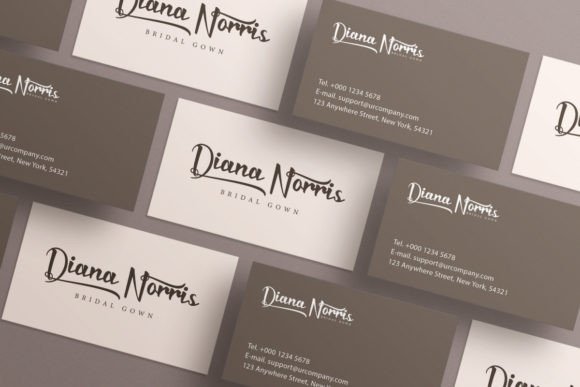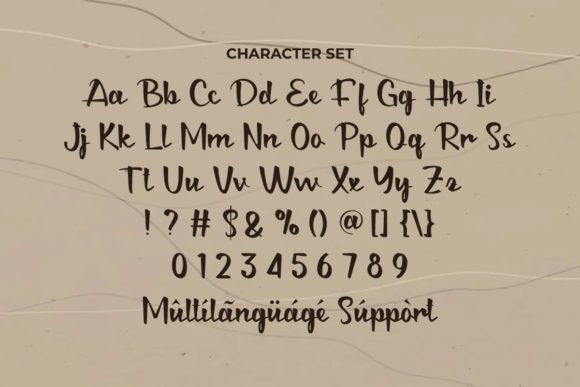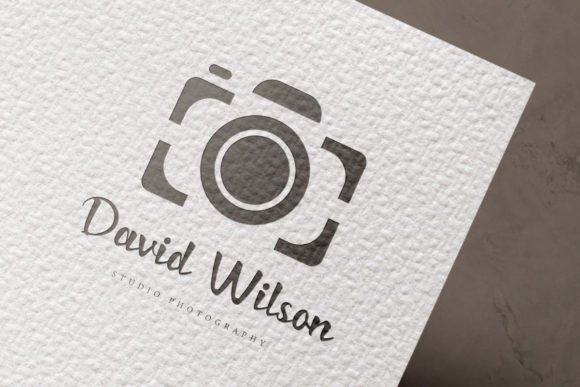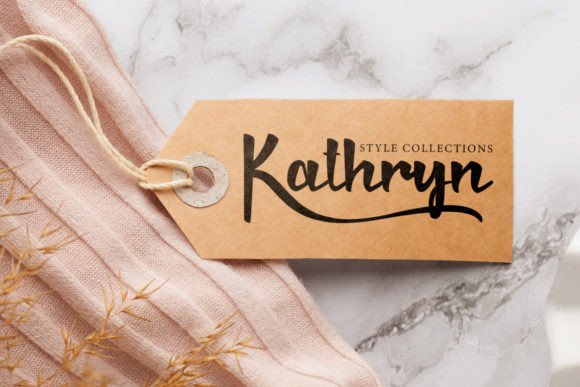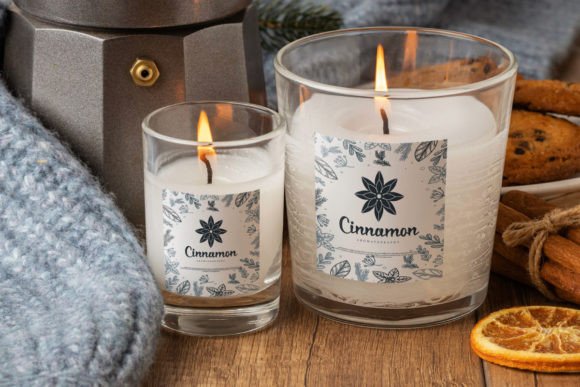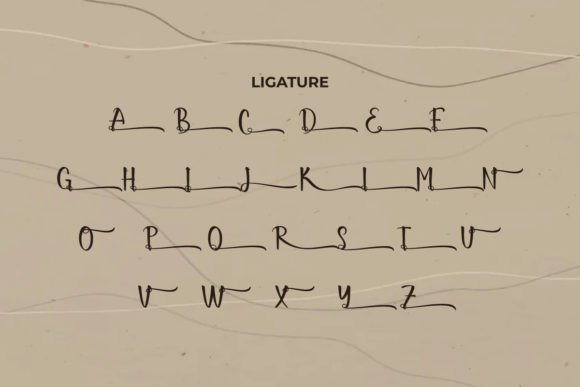
Elevate Your Designs with Classy Script Font: A Delicate and Elegant Handwritten Style
Are you looking for a font that exudes sophistication and refinement? Look no further than Classy Script, a beautiful and flowing handwritten font that is sure to elevate your designs to the next level. With its delicate and elegant characters, Classy Script is the perfect choice for designers and crafters who want to add a touch of luxury and glamour to their work.
What Makes Classy Script So Special?
Classy Script is a delicate, elegant, and flowing handwritten font that has been carefully crafted to provide a beautiful and well-balanced character set. Each letter has been meticulously designed to ensure that it flows seamlessly with the others, creating a stunning and cohesive look that is sure to impress. Whether you’re working on a branding project, a wedding invitation, or a craft project, Classy Script is the perfect choice.
One of the standout features of Classy Script is that it is PUA (Private Use Area) encoded. This means that you can access all the glyphs and ligatures with ease, giving you complete creative control over your designs. With PUA encoding, you can easily access the font’s extensive character set, including swashes, alternates, and ligatures, allowing you to create truly unique and eye-catching designs.
Classy Script is an incredibly versatile font that matches a wide pool of designs. Whether you’re working on a modern and minimalist project or a more traditional and ornate design, Classy Script is sure to fit right in. Its elegant and flowing characters make it perfect for use in:
- Craft projects, such as scrapbooking and card making
- Signage and display design
- Digital design, such as social media graphics and blog headers
Why Choose Classy Script?
So why choose Classy Script over other fonts? Here are just a few reasons:
- Elegance and sophistication: Classy Script exudes luxury and refinement, making it perfect for high-end designs.
- Versatility: Classy Script matches a wide pool of designs, making it a great choice for a variety of projects.
- Easy to use: With PUA encoding, accessing the font’s extensive character set is easy and straightforward.
- Beautiful and well-balanced characters: Each letter has been carefully crafted to ensure a stunning and cohesive look.
Tips for Using Classy Script
Here are a few tips for getting the most out of Classy Script:
- Experiment with different sizes and colors: Classy Script looks great in a variety of sizes and colors, so don’t be afraid to experiment and find the perfect combination for your design.
- Use it with contrasting fonts: Pair Classy Script with a contrasting font to create visual interest and add depth to your design.
- Take advantage of the font’s extensive character set: With PUA encoding, you can access a wide range of glyphs and ligatures, so be sure to explore the font’s full capabilities.
In conclusion, Classy Script is a beautiful and elegant handwritten font that is sure to elevate your designs to the next level. With its delicate and flowing characters, PUA encoding, and versatility, Classy Script is the perfect choice for designers and crafters who want to add a touch of luxury and glamour to their work. So why wait? Try Classy Script today and see the difference it can make in your designs!